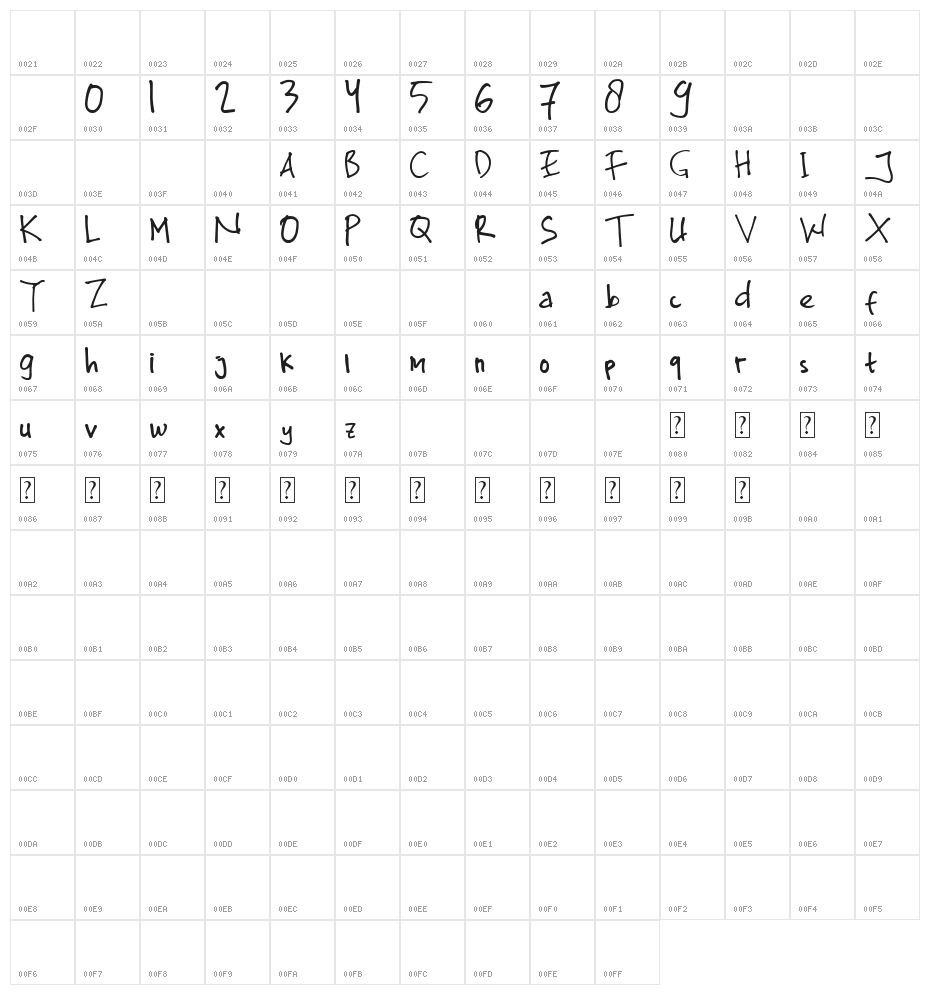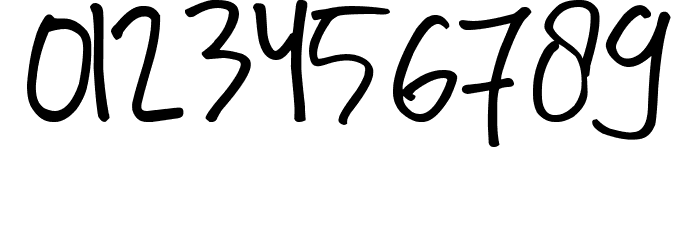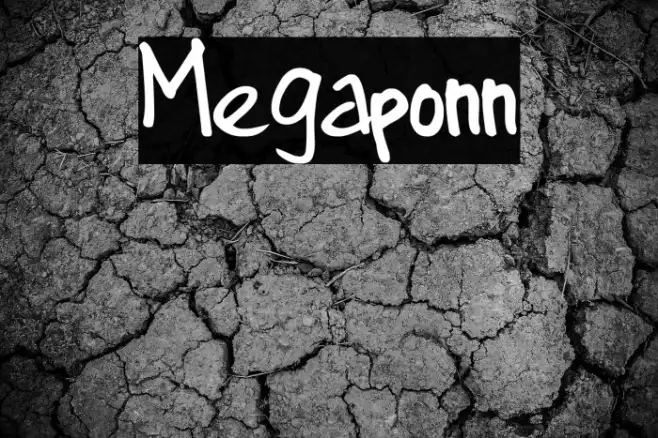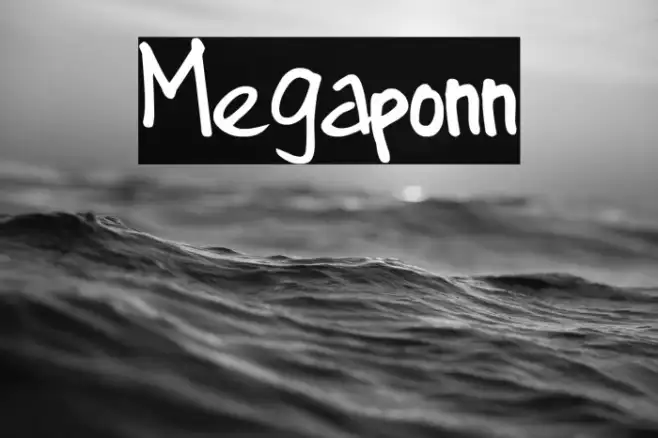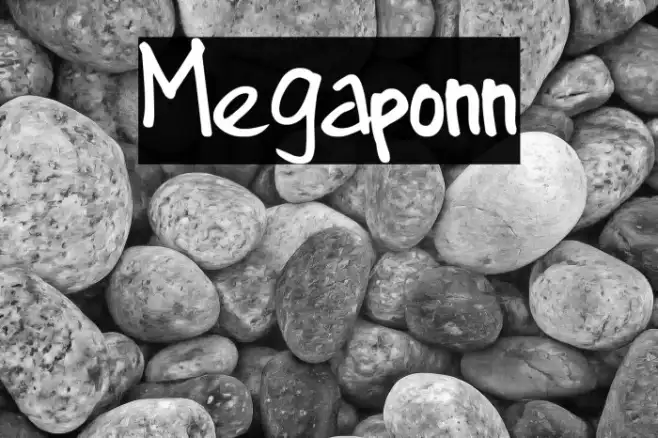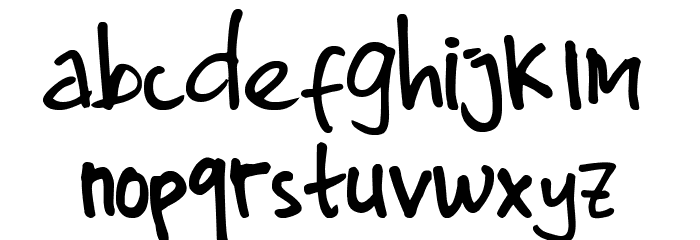
Megaponn Font
Megaponn Description
This font exudes a playful and casual handwritten style, characterized by its irregular strokes and slightly uneven baseline. The letters are free-spirited, with a natural flow that mimics the spontaneity of handwriting. The uppercase letters are tall and slightly narrow, while the lowercase letters maintain a consistent height, adding to the font's approachable and friendly appearance. The numbers are bold and clear, ensuring readability. The special characters are creatively integrated, maintaining the overall whimsical aesthetic. This font is perfect for projects that require a personal touch, such as invitations, greeting cards, or casual branding.
| Use Case | Headlines, Informal text, Personal projects |
| Proposed Projects | Ideal for invitations, greeting cards, casual branding, and personal projects. |